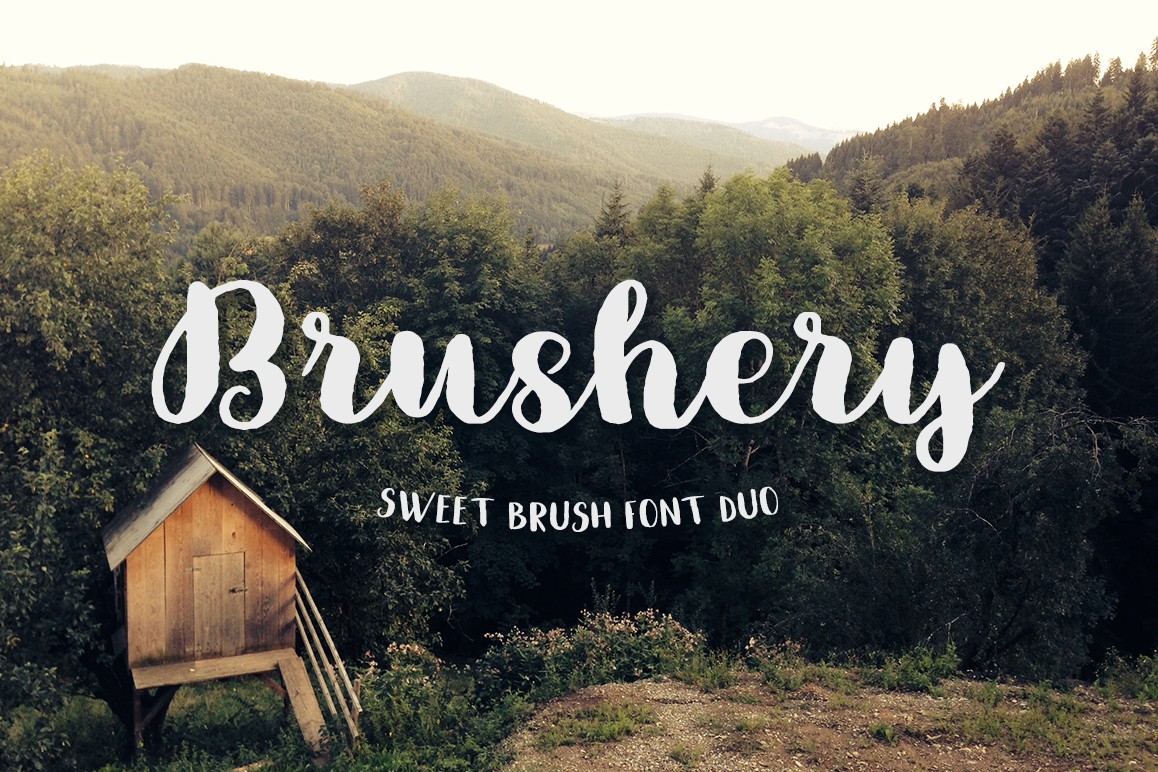
Brushery Font Duo
It's hand lettered script font. With this type, you will see a lot of extras. This font is ideal for branding and decorate your any project.
This font are perfect for wedding invitation or your blog. Also with their help, you can create a logo or beautiful frame for your home. Or just use for your small business, book covers, stationery, marketing, magazines and more.What you get?:
• Brushery Script
• Brushery Caps